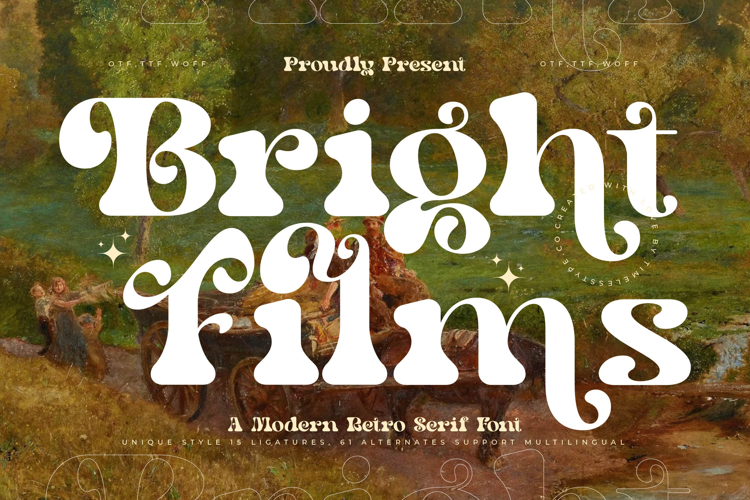
Bright Films - Modern Retro Serif Font
Bright Films is a modern retro serif font that combines bold expression with groovy vintage aesthetics. Its thick, rounded letterforms, playful swashes, and decorative curves create a lively typeface full of personality and charm, ideal for projects that want to capture nostalgic vibes while staying stylish and contemporary. With 15 ligatures and 61 alternates, Bright Films provides designers with plenty of flexibility to craft unique and eye-catching typography.
This font shines in headline typography, where its bold retro style creates maximum impact on posters, banners, and editorial spreads. In branding and logo design, Bright Films communicates originality and creativity, making it an excellent choice for music projects, lifestyle brands, fashion, or creative studios seeking a groovy and memorable identity. Its playful, bold look also makes it highly effective for packaging design, particularly for beverages, artisanal goods, snacks, and retro-themed products where typography is central to visual storytelling.
Bright Films thrives in advertising campaigns, event promotions, and festival posters, where its alternates and ligatures inject energy and individuality. For social media graphics and digital platforms, the font ensures bold visibility while delivering a unique retro-modern aesthetic that resonates with audiences who appreciate stylish throwbacks.
With multilingual support, Bright Films adapts effortlessly to international projects, expanding its versatility for global branding and creative campaigns.
Ultimately, Bright Films is more than just a font—it is a statement of retro charm and bold creativity. Whether applied to editorials, branding, packaging, or advertising, it guarantees projects that radiate fun, nostalgia, and unforgettable style.